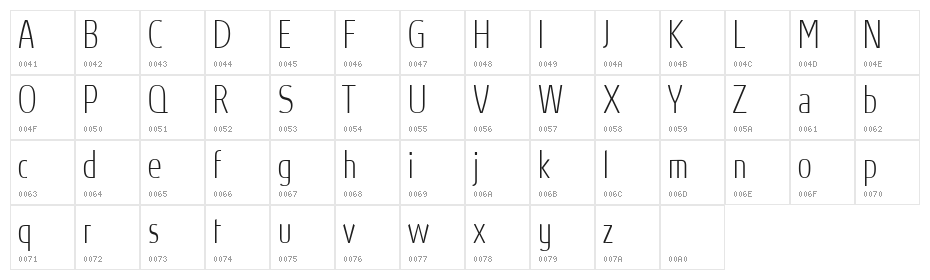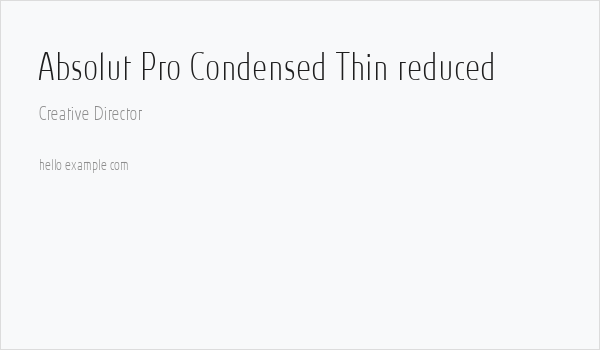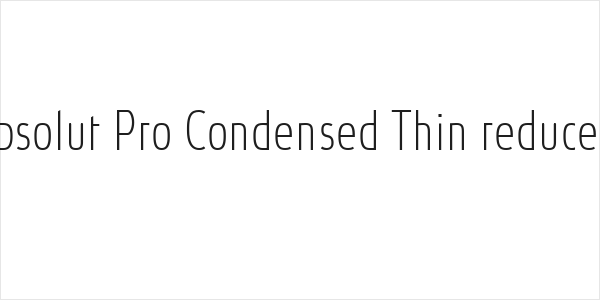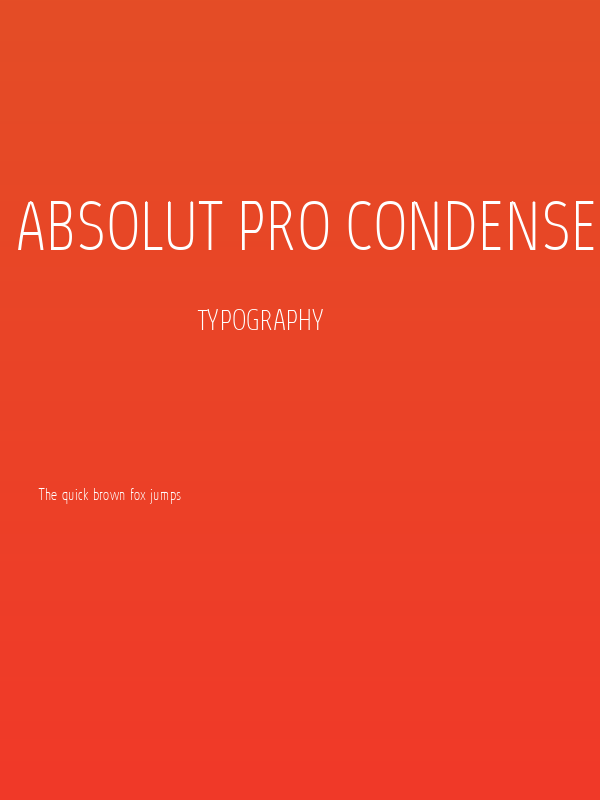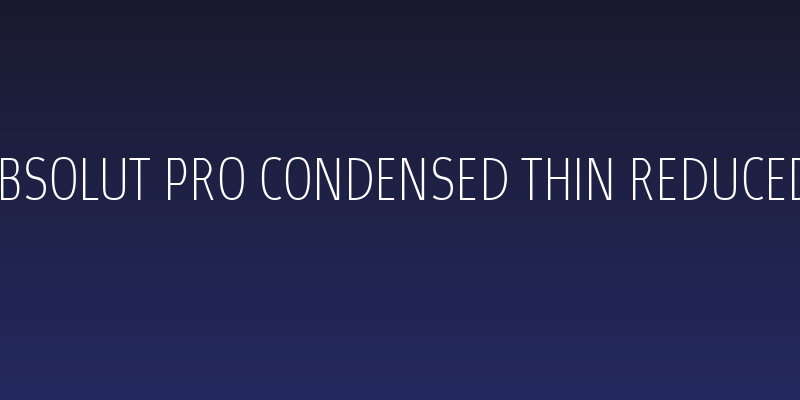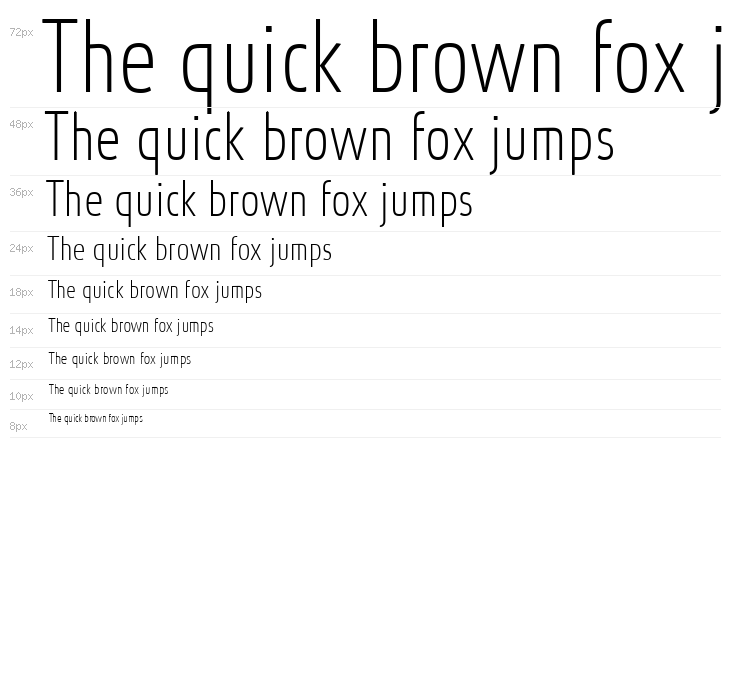
Absolut Pro Condensed Thin reduced Font
Absolut Pro Condensed Thin reduced Description
This font presents a sleek and modern aesthetic with its thin, condensed letterforms. The characters are tall and narrow, providing a clean and streamlined appearance. The uniform stroke width throughout the alphabet contributes to its minimalist style, making it suitable for contemporary design projects. The uppercase and lowercase letters maintain a consistent height, enhancing readability while preserving a stylish look. The font's simplicity and elegance make it versatile for various applications, from digital interfaces to print media.
| Proposed Projects | Ideal for branding, editorial design, digital interfaces, and minimalist posters. |